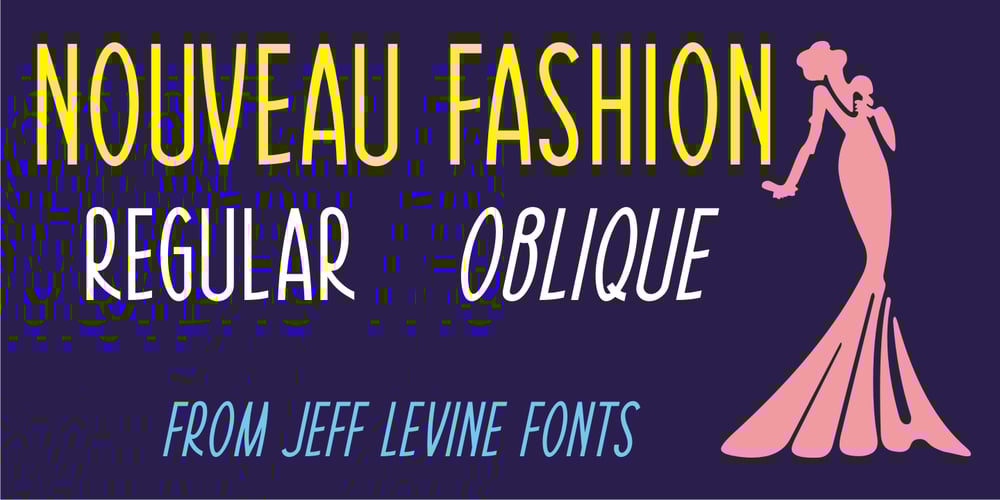
Nouveau Fashion JNL Font Family was designed by Jeff Levine and published by Jeff Levine. Nouveau Fashion JNL contains 2 styles and family package options. A pleasant Art Nouveau hand lettered title is featured on the sheet music cover for “You Brought A New Kind of Love to Me”. The song is from the 1930 Paramount film “The Big Pond” featuring Maurice Chevalier and Claudette Colbert. The original lettering was done with a round point pen nib, and showed a lot of small inconsistencies. For the digital version it has been “tightened up” a bit and is now available as Nouveau Fashion JNL, in both regular and oblique versions.